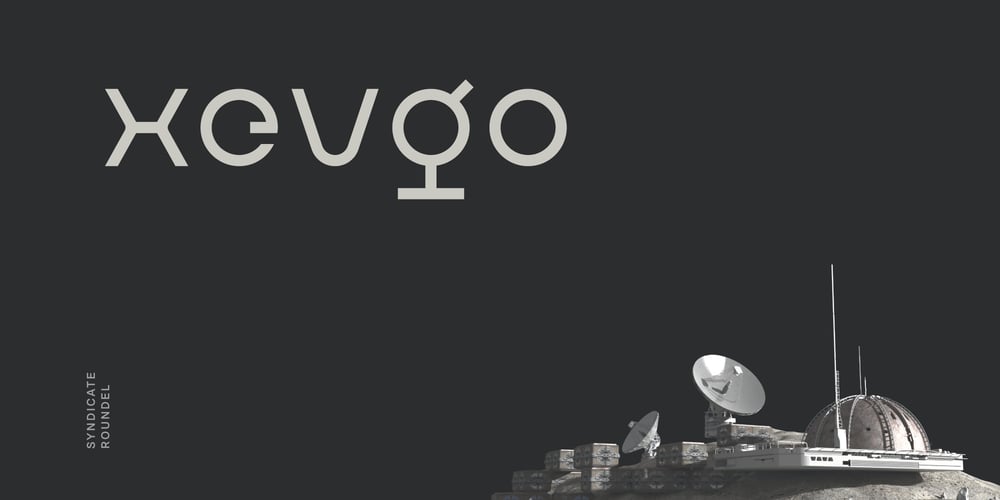
Xevgo Font Family was designed by Andrew Seah and published by Baqoos. Xevgo contains 3 styles and family package options. Xevgo is a syndicate roundel tech sans apt for headline, editorial, branding, packaging, printed materials and typographic applications. 200+ glyphs with ligatures and fractions provided in opentype .otf.